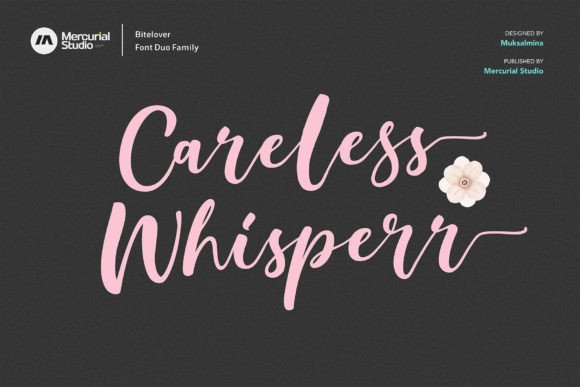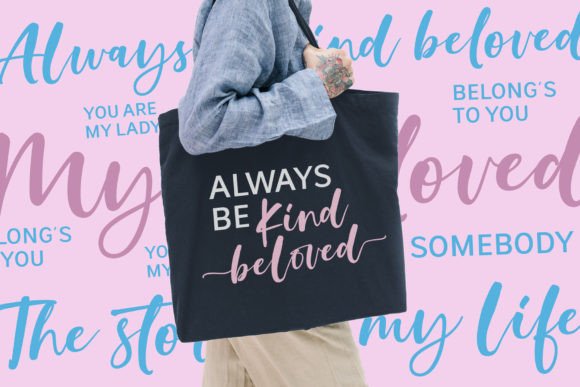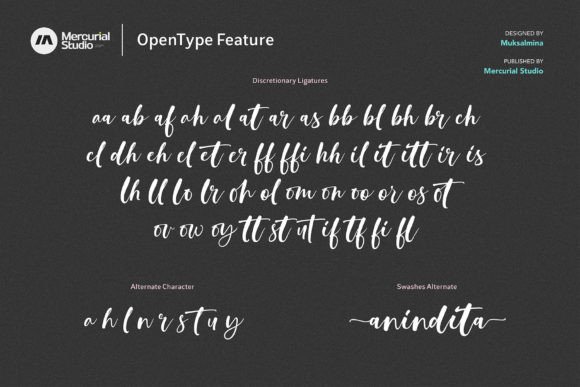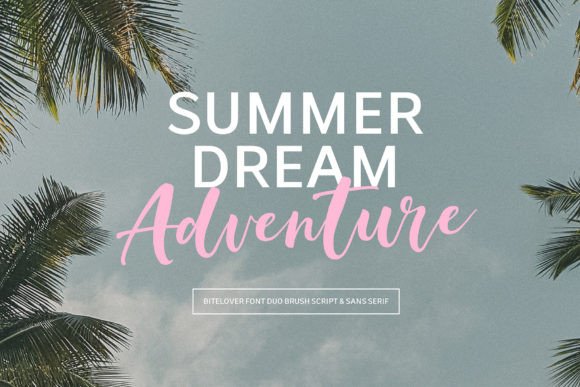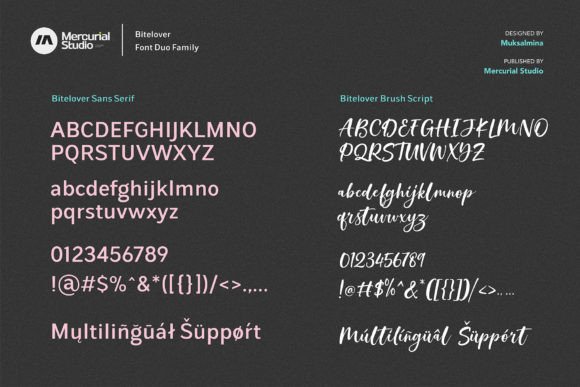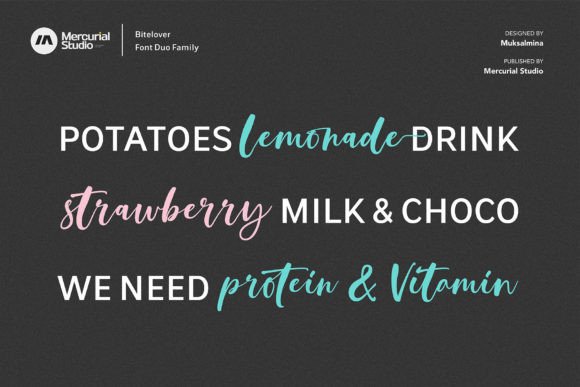
Introducing Bitelover Font: The Perfect Duo for Your Design Needs
Are you a designer or crafter looking for a font that can elevate your design ideas to the next level? Look no further than Bitelover Font, a modern and charming duo font that is sure to impress. With its balanced and exclusive design, Bitelover is the perfect choice for anyone looking to add a touch of elegance and sophistication to their work.
A Balanced and Exclusive Design
Bitelover Font is a carefully crafted duo font that strikes the perfect balance between thin and thick lines. Not too thin and not too thick, Bitelover is designed to be versatile and adaptable, making it suitable for a wide range of design applications. Whether you’re working on a logo, a brochure, or a website, Bitelover is the perfect choice for adding a touch of class and sophistication.
One of the standout features of Bitelover Font is its PUA (Private Use Area) encoding. This means that you can access all of the alternate characters and swashes with ease, giving you even more creative freedom and flexibility. With PUA encoding, you can easily switch between different characters and swashes to create a unique and personalized design that reflects your brand’s identity.
Bitelover Font is a dream come true for designers and crafters. With its modern and charming design, Bitelover is perfect for a wide range of design applications, from logos and brochures to websites and social media graphics. Whether you’re a professional designer or a crafter looking to add a personal touch to your work, Bitelover is the perfect choice for anyone looking to create beautiful and eye-catching designs.
Key Features of Bitelover Font
- Modern and charming duo font: Bitelover Font is a carefully crafted duo font that is designed to be modern and charming.
- Balanced and exclusive design: Bitelover Font strikes the perfect balance between thin and thick lines, making it suitable for a wide range of design applications.
- PUA encoded: Bitelover Font is PUA encoded, making it easy to access all of the alternate characters and swashes.
- Perfect for designers and crafters: Bitelover Font is perfect for designers and crafters looking to add a touch of elegance and sophistication to their work.
Tips and Tricks for Getting the Most Out of Bitelover Font
Here are a few tips and tricks for getting the most out of Bitelover Font:
- Experiment with different characters and swashes: With its PUA encoding, Bitelover Font offers a wide range of characters and swashes to choose from. Experiment with different combinations to create a unique and personalized design.
- Use Bitelover Font in combination with other fonts: Bitelover Font can be used in combination with other fonts to create a unique and eye-catching design.
- Pay attention to font size and spacing: Make sure to pay attention to font size and spacing to ensure that your design looks balanced and visually appealing.
In conclusion, Bitelover Font is a modern and charming duo font that is perfect for designers and crafters looking to add a touch of elegance and sophistication to their work. With its balanced and exclusive design, PUA encoding, and ease of use, Bitelover Font is the perfect choice for anyone looking to create beautiful and eye-catching designs.